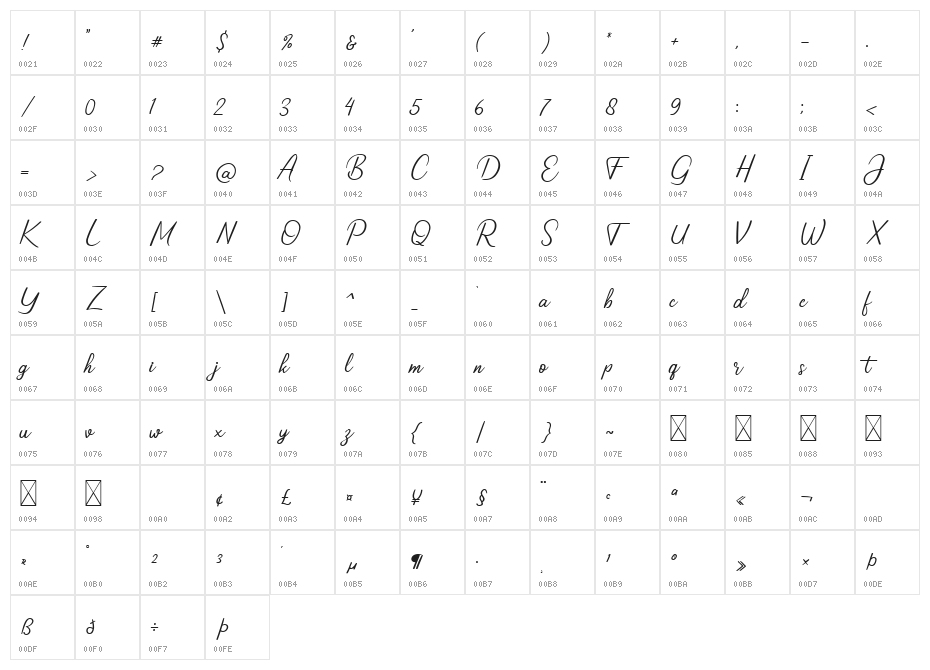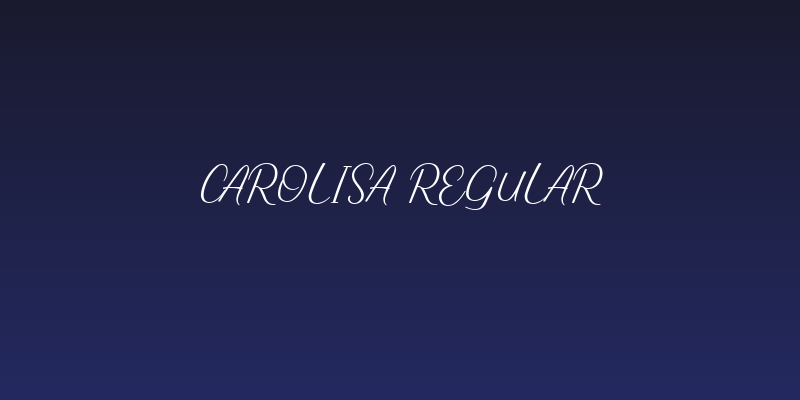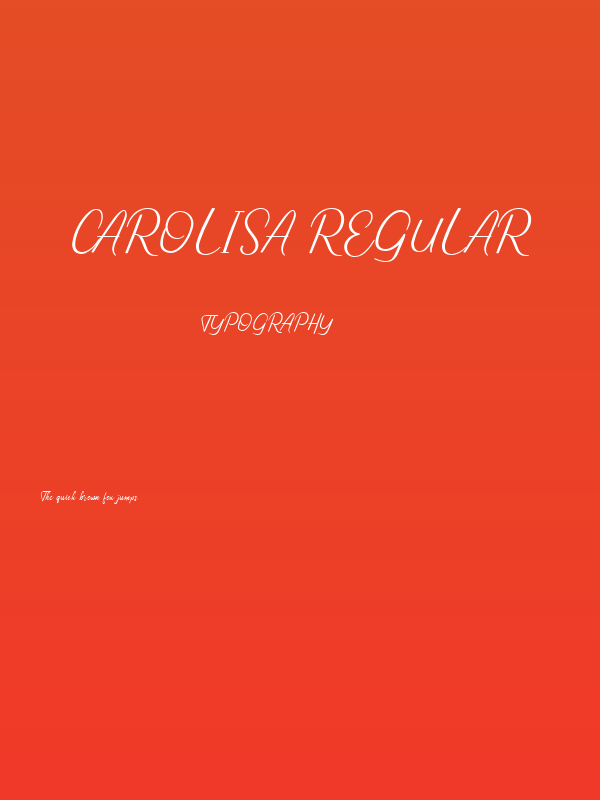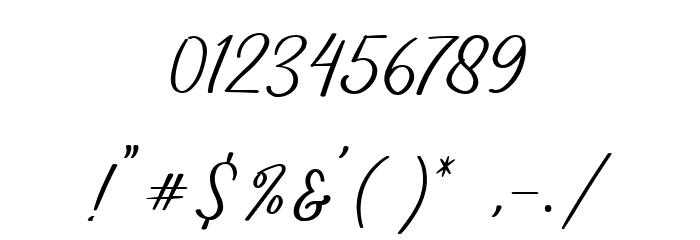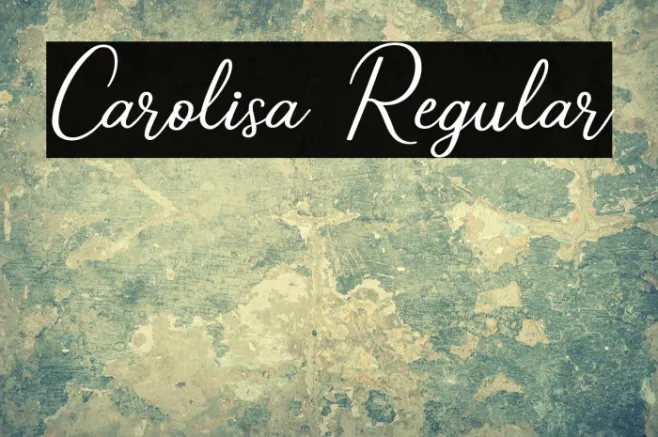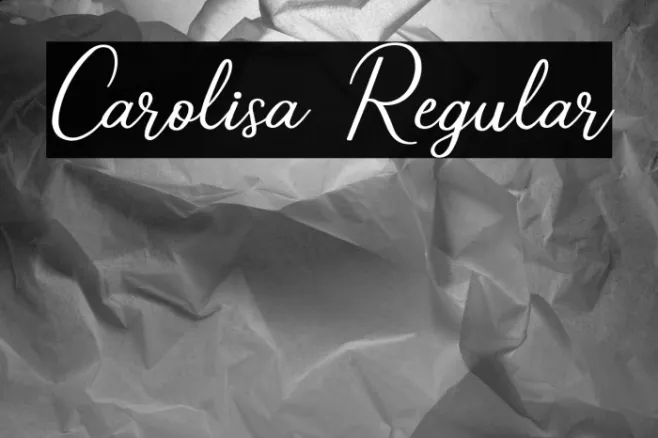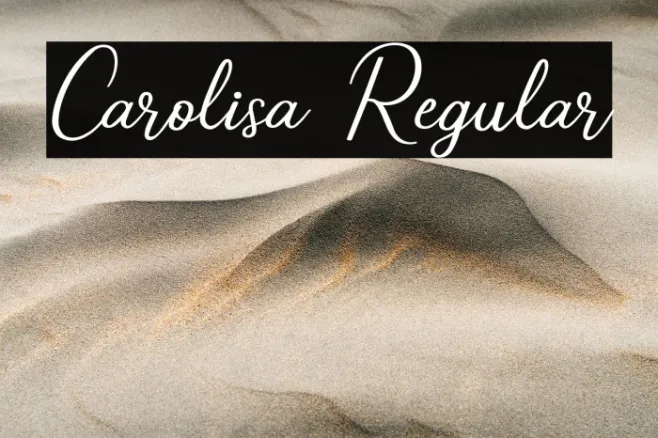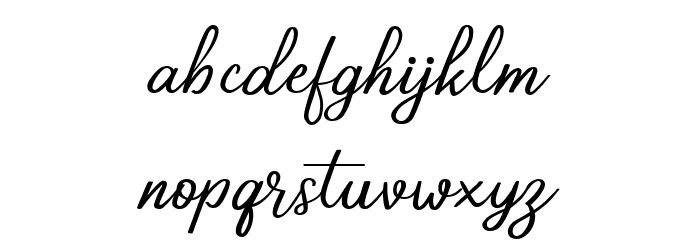
Carolisa Regular Font
Carolisa Regular Description
This font features a flowing, elegant script style that mimics the fluidity of handwriting. The uppercase letters are tall and slightly slanted, with graceful curves and loops that add a touch of sophistication. The lowercase letters maintain a consistent style, with smooth connections between characters, enhancing readability while preserving the decorative nature. The numerals are designed to match the script style, with a slight slant and consistent stroke width. Special characters are integrated seamlessly, maintaining the overall aesthetic. This font is ideal for projects that require a personal, elegant touch.